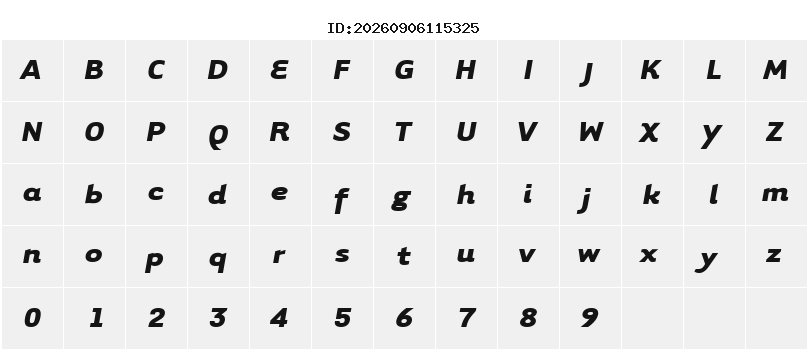
TarzanaWide Preview
• Font Name: TarzanaWide
• Font ID: Altsys Fontographer 3.5 TarzanaWide Bold Italic
• Full Font Name: TarzanaWide Bold Italic
• Version: Altsys Fontographer 3.5 7/27/98
• PostScript Name: TarzanaWideBoldItalic
• Copyright: Copyright (C) 1998, Emigre Graphics; Designed by Zuzana Licko
About TarzanaWide.ttf
TarzanaWide.ttf is a modern, elegant sans-serif font designed for ultimate readability and visual harmony. Perfect for branding, headlines, web design, and print materials.